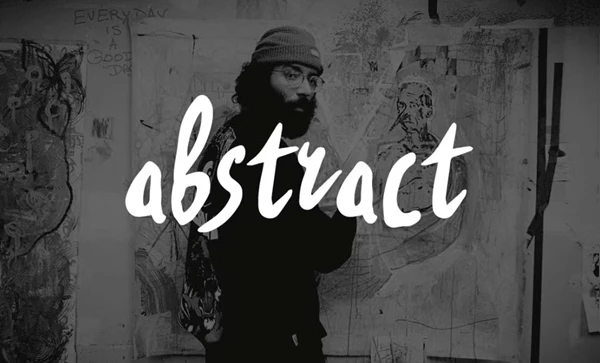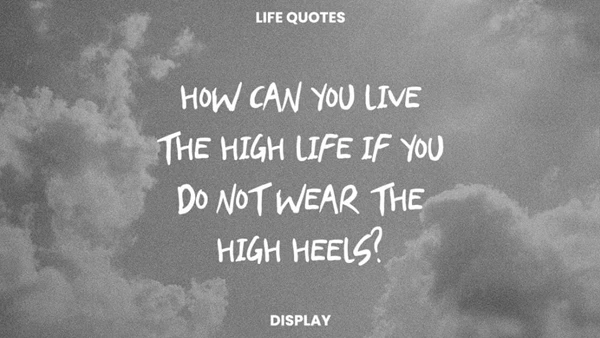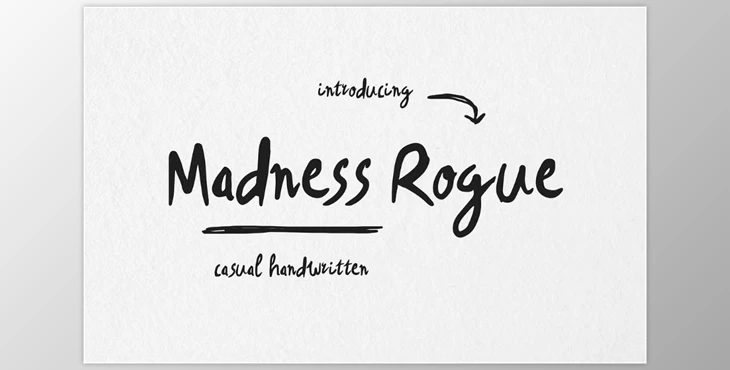
Madness Rogue Casual Handwritten Font:
The Madness Rogue Casual Handwritten font is a modern handwritten display font to give your designs an elegant and fashionable finish. Madness Rogue is the best choice for any project, from a personal signature to wedding invitations. It works great as a logo, typography, quotes, and even book/magazine covers. Since it has a somewhat masculine and feminine touch, it's great for use in fashion logos and editorial pieces.
- Many glyph options